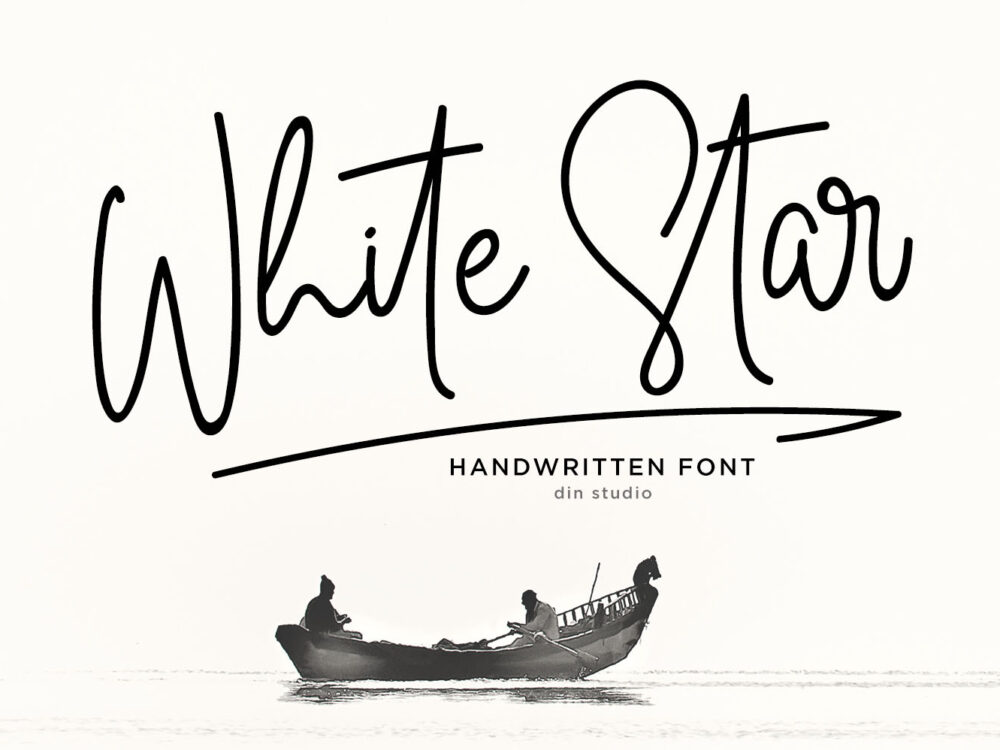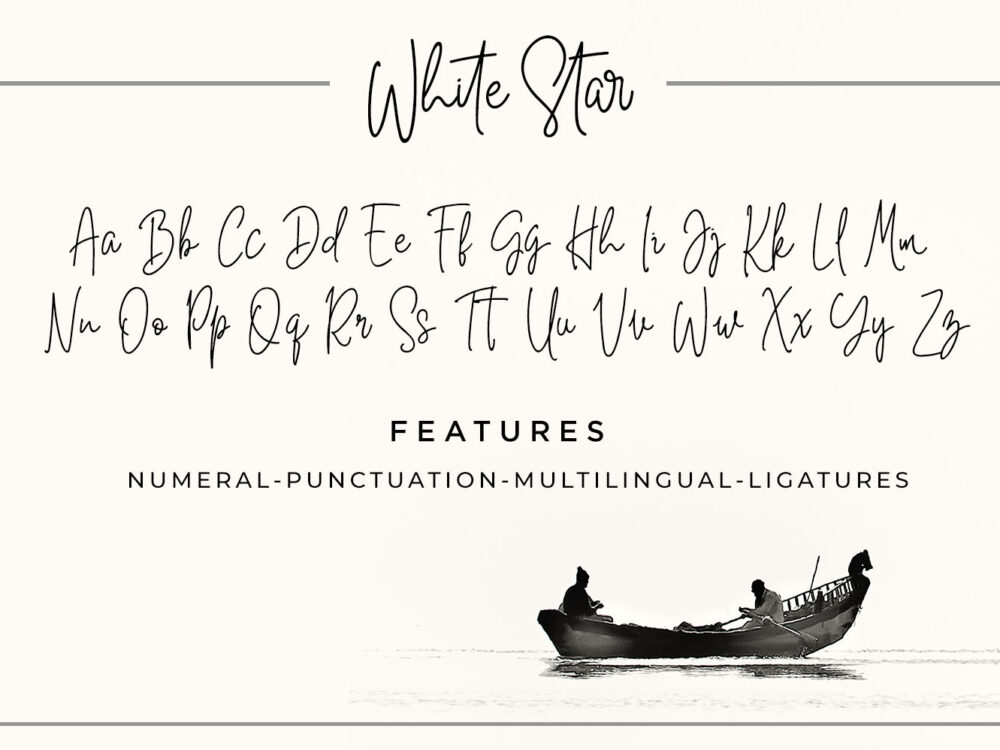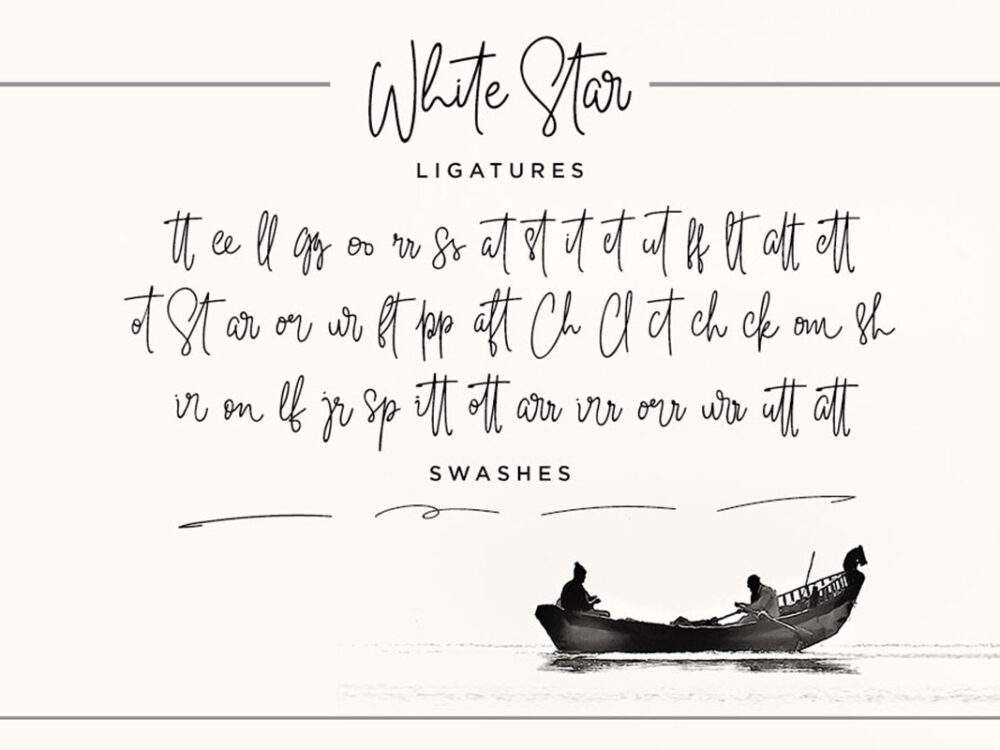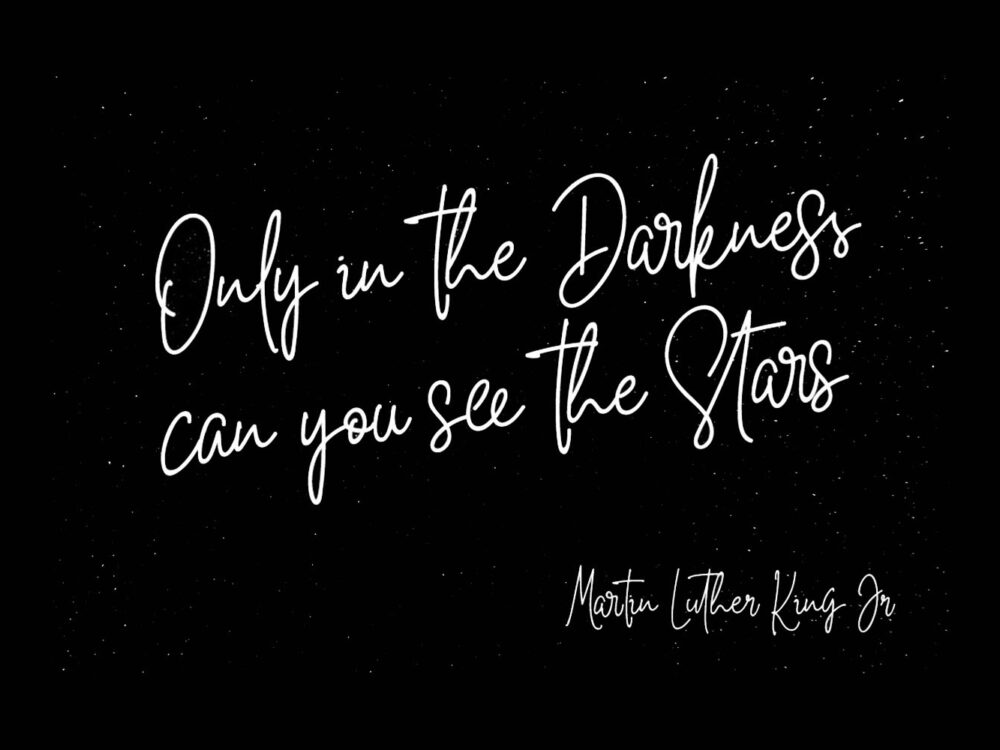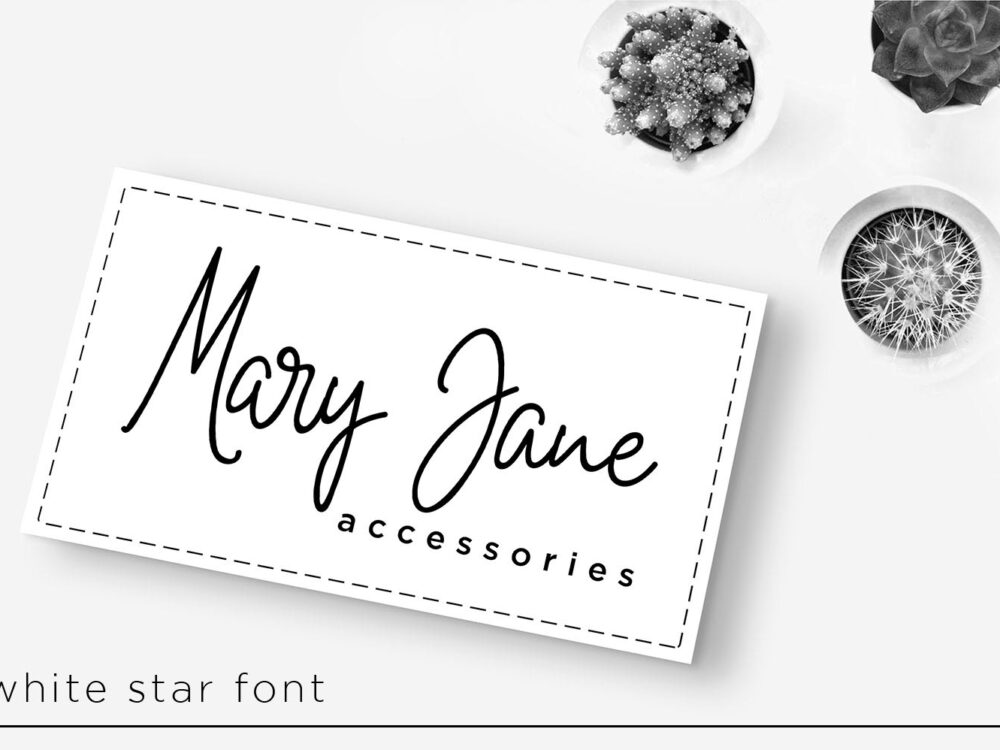
White Star Script Font Demo
Free Casual Font
White Star Script Font
White Star Script Font Demo is an original handwritten font that will help you create unique design projects. Use this font to create posters, invitations, cards, clothing prints, and more. So, if you wish to access more features and use it for commercial work, go get the full version as well.